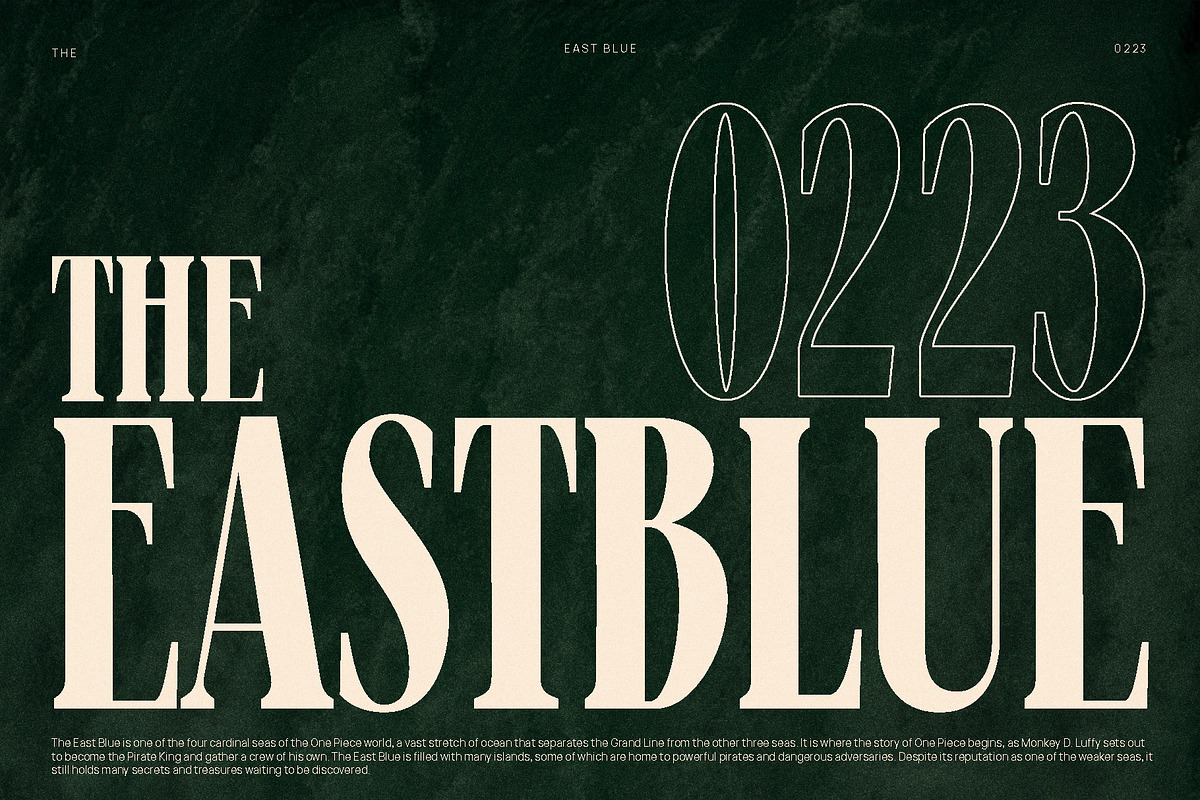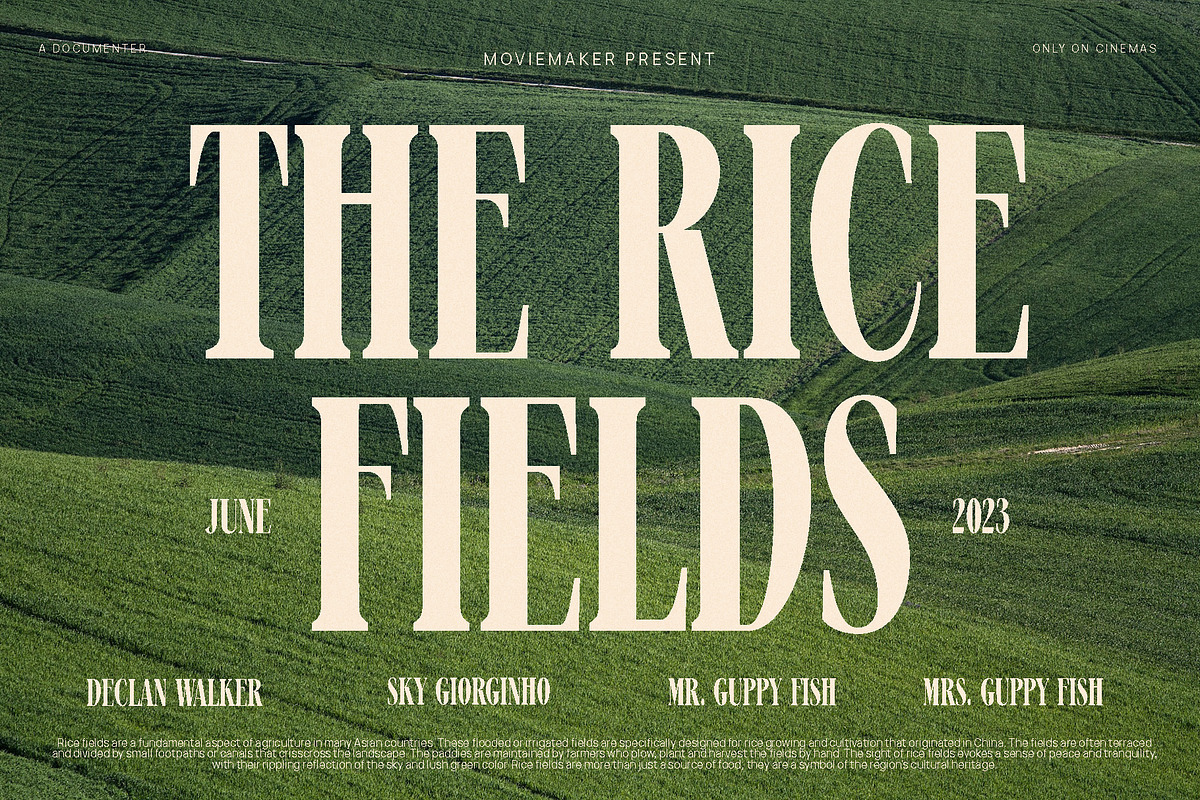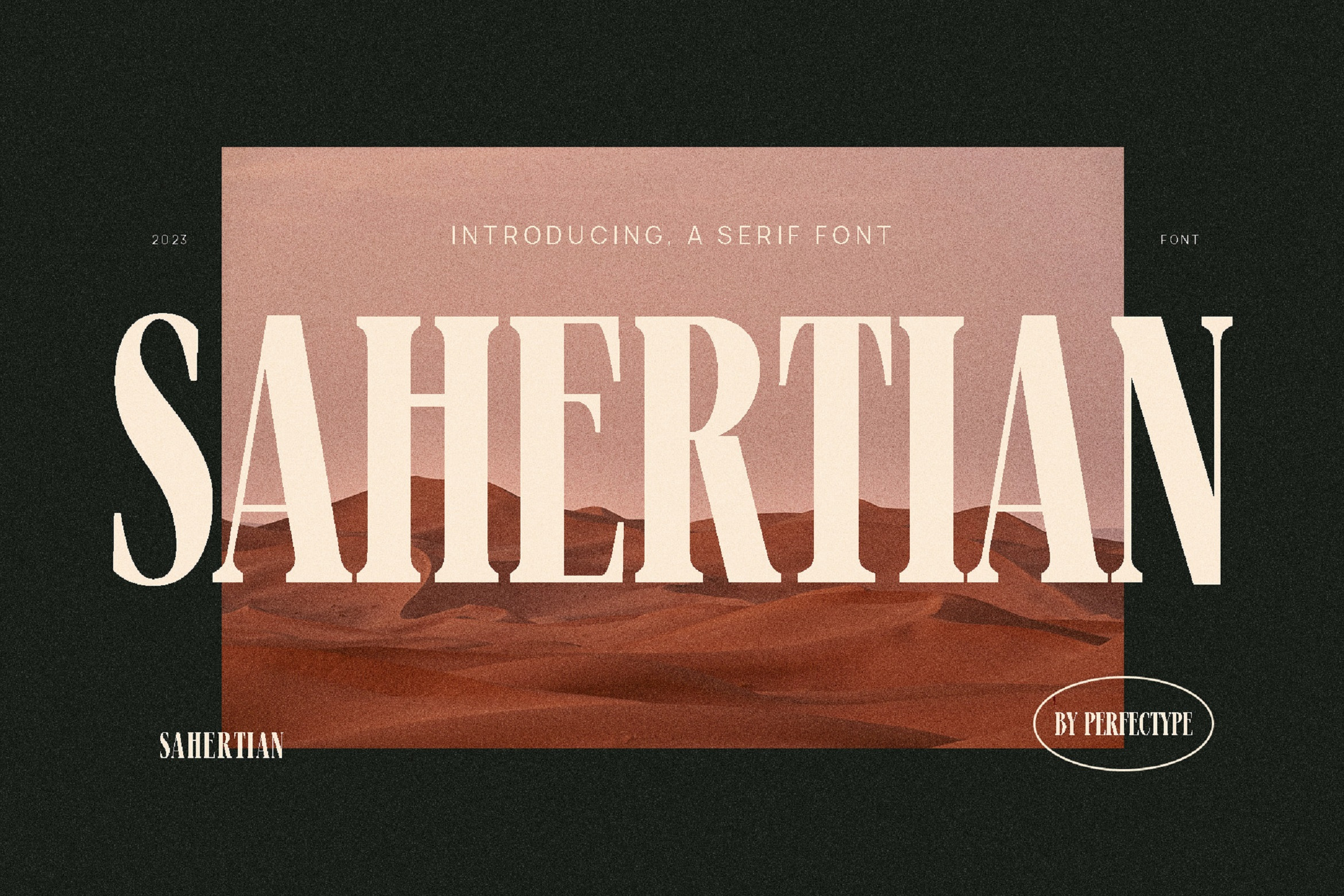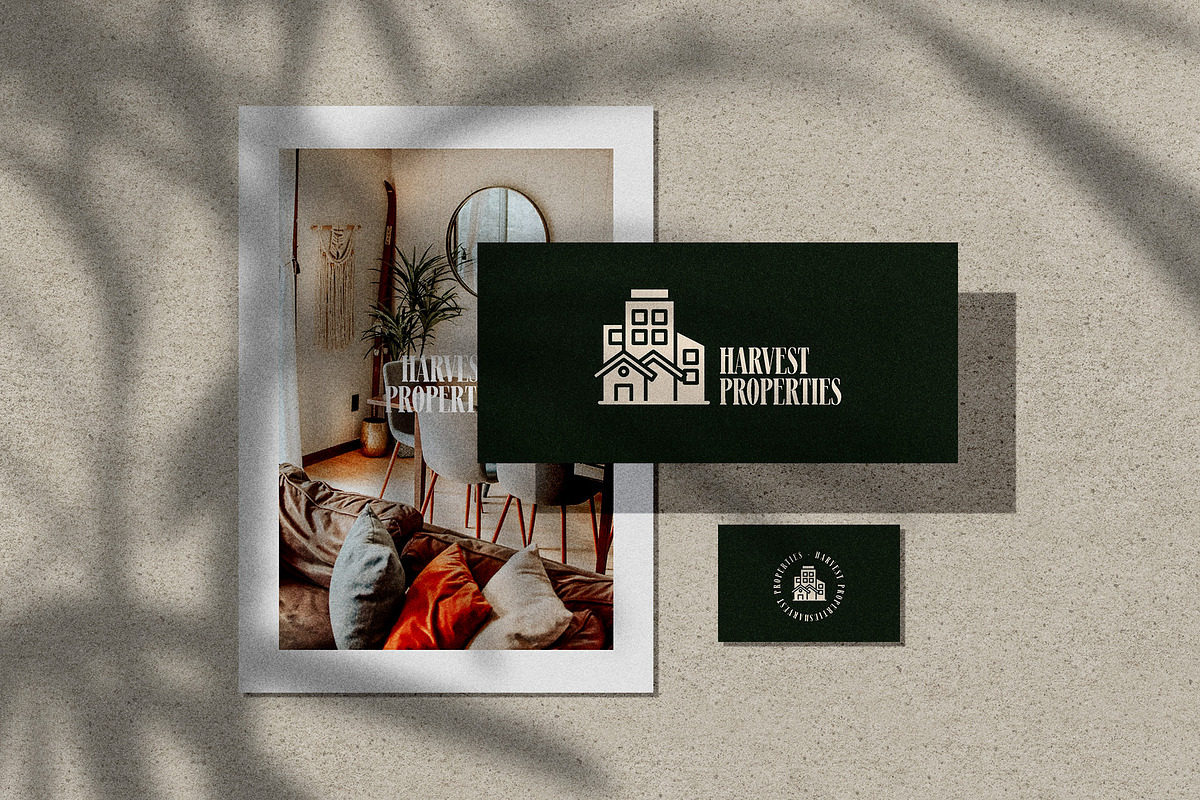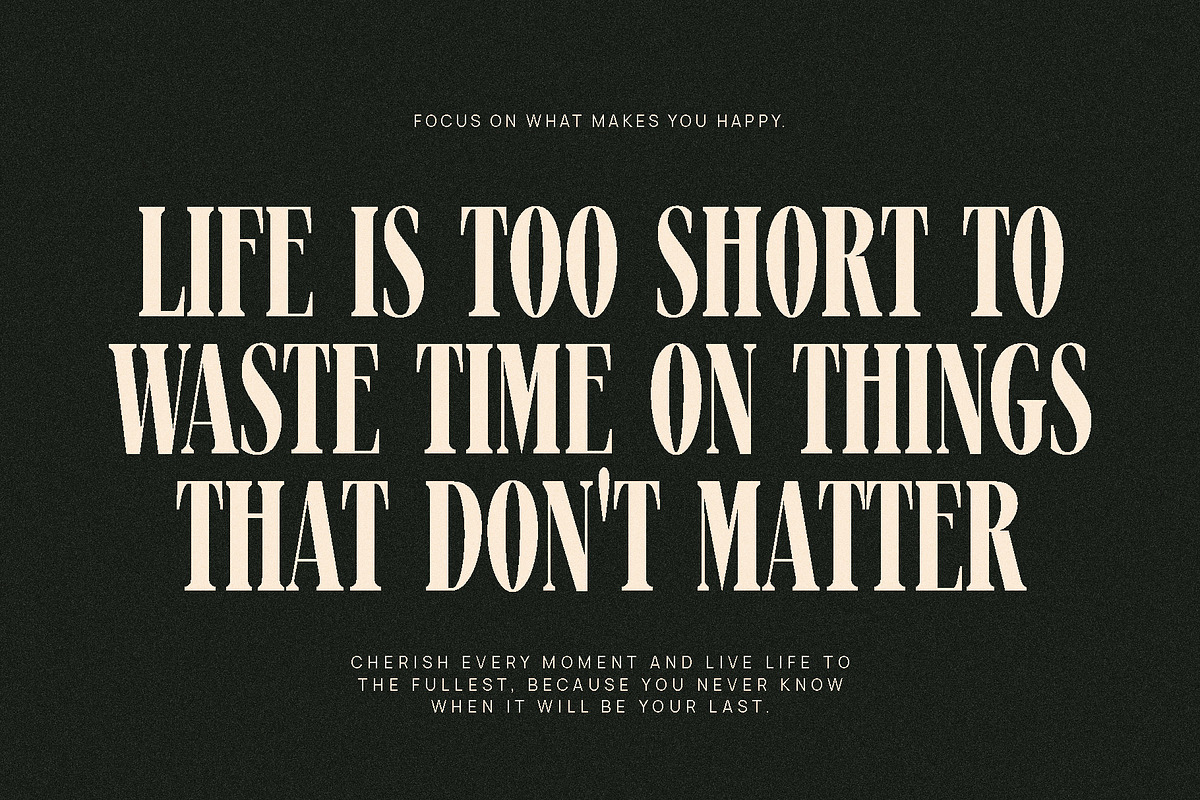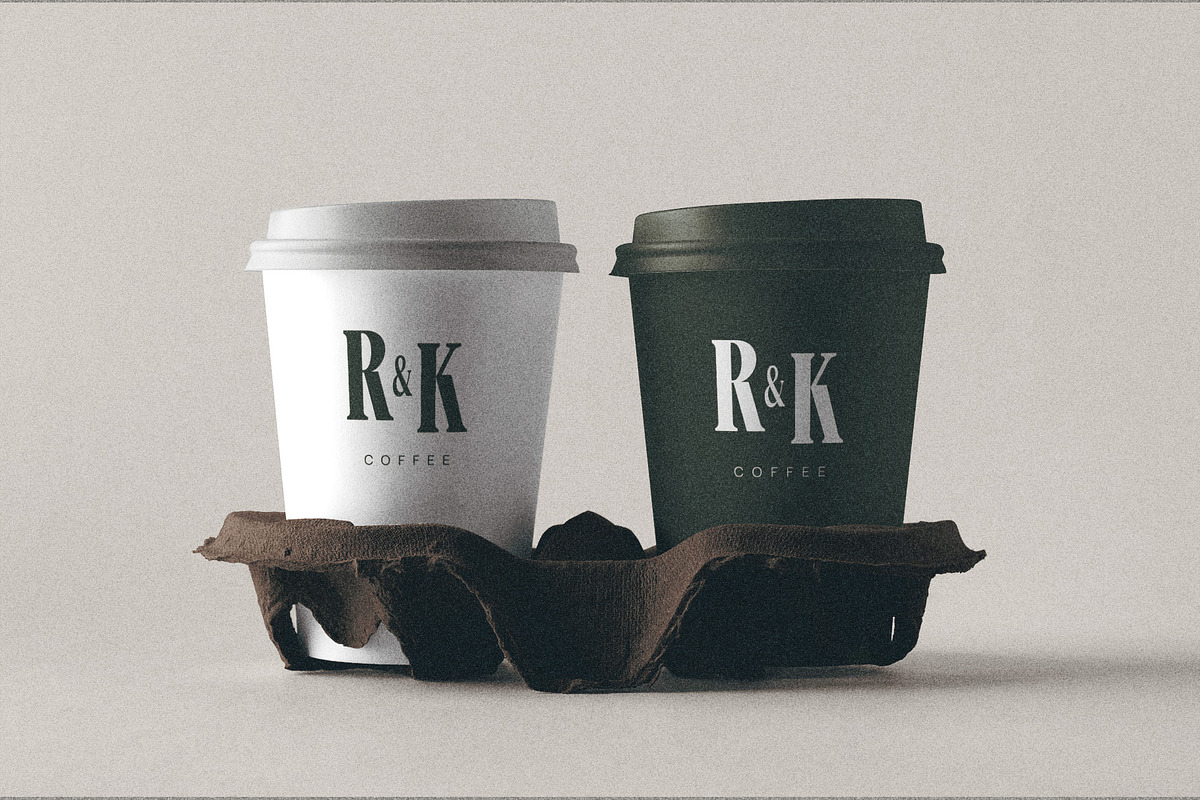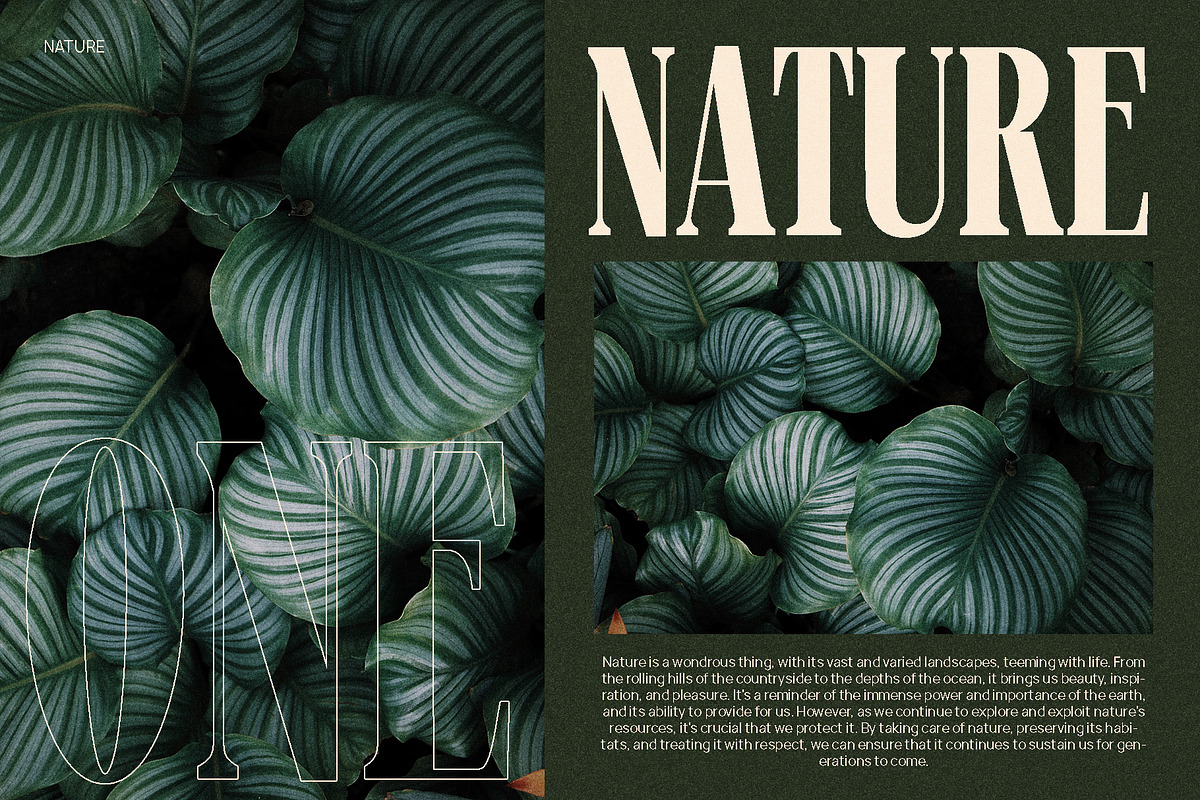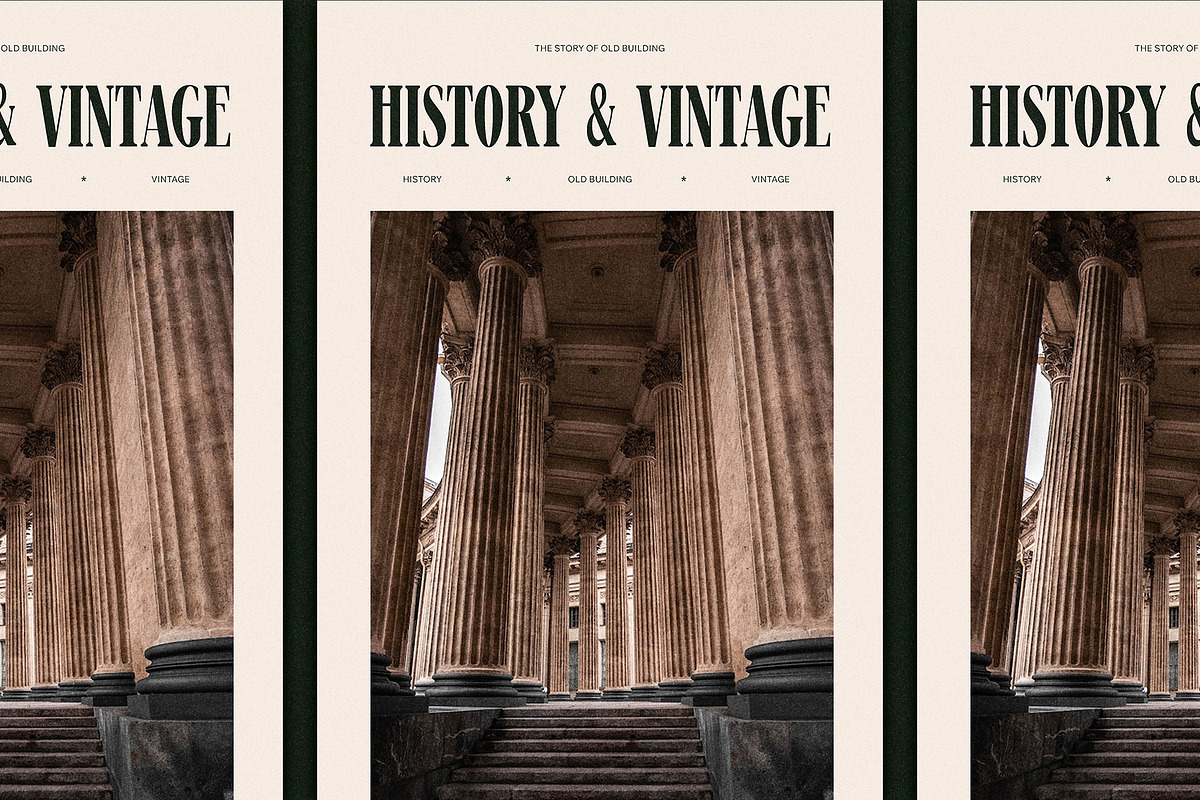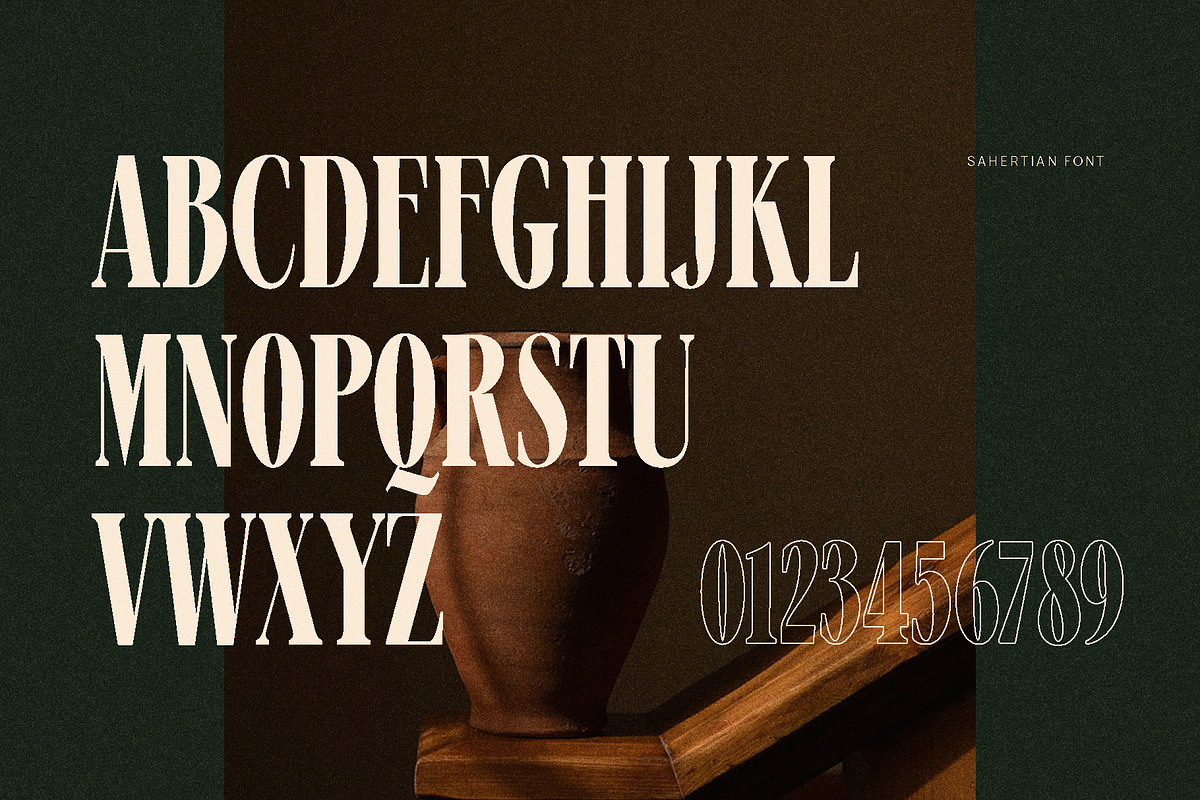
Sahertian Elegant Serif Font
Sahertian Elegant Serif Font inspired by the famous minimalist logo perfect for the purposes of designing templates, brochures, videos, advertising branding, logos, invitation, layout design, elegant crafting, beauty design and other